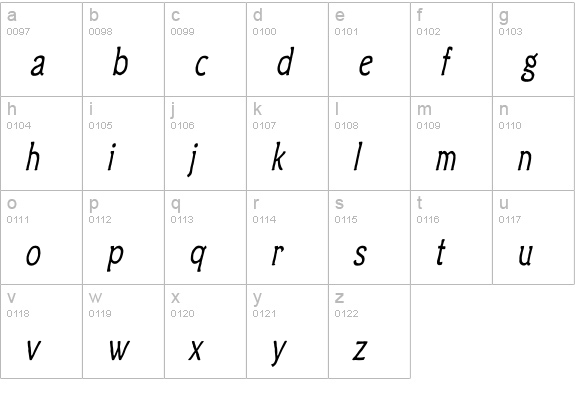
ClicheeCE-Oblique Font Details
ClicheeCE-Oblique is a distinctive, italic variant in the ClicheeCE typeface family \xE2\x80\x94 well suited to design and typography projects.
Introducing ClicheeCE-Oblique font, a stylish and versatile typeface that adds a touch of sophistication to any design project. With its sleek and modern look, ClicheeCE-Oblique font is perfect for creating eye-catching headlines, logos, and branding materials. This font features a unique oblique style that gives it a dynamic and contemporary feel. Its clean lines and elegant curves make it a great choice for both print and digital designs. Whether you're designing a website, poster, or business card, ClicheeCE-Oblique font will make your text stand out. Best of all, ClicheeCE-Oblique font is available for free download at FontsMarket.com. So you can start using this stylish typeface in your projects right away without breaking the bank. Don't miss out on the opportunity to add a touch of elegance to your designs with ClicheeCE-Oblique font. Download it today and see the difference it can make!